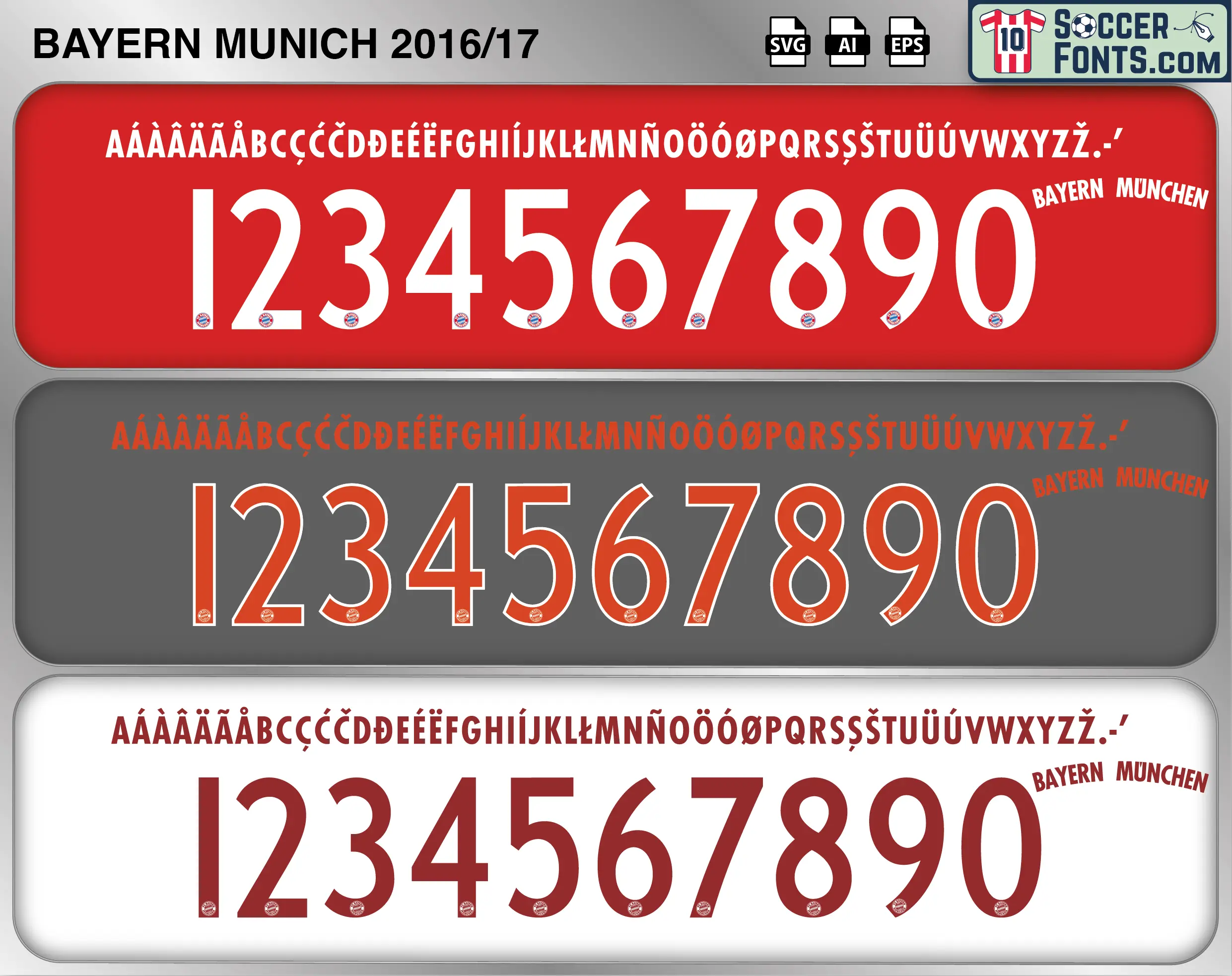
About Bayern Munich 2016-17 Font
Download the Bayern Munich 2016-17 font, an editable soccer jersey lettering design in vector format inspired by the Bayern Munich kit style used during the 2016-17 football season. This football font artwork is prepared for football shirt recreations, custom jersey projects, football kit mockups and sports graphic design workflows.
The 2016-17 season opened a new chapter at Bayern Munich as Carlo Ancelotti succeeded Pep Guardiola and inherited a squad packed with established international stars. Robert Lewandowski remained the focal point of the attack alongside Thomas Müller, Arjen Robben, Franck Ribéry and Douglas Costa, while Manuel Neuer, Philipp Lahm, Jérôme Boateng, Mats Hummels, David Alaba and Arturo Vidal provided experience throughout the team. The Bayern Munich 2016-17 font belongs to a campaign in which the club maintained its domestic dominance and secured a fifth consecutive Bundesliga championship. Lewandowski produced another prolific season, while Lahm and Xabi Alonso approached the end of distinguished playing careers that had made both figures important parts of Bayern’s football culture.
European competition provided some of the season’s most memorable matches. Bayern emphatically eliminated Arsenal from the UEFA Champions League round of 16 with 5-1 victories in both legs before meeting Real Madrid in a dramatic quarter-final. Their European campaign ended after extra time at the Santiago Bernabéu, leaving the Bundesliga title as the major trophy of Ancelotti’s first season. The Bayern Munich 2016-17 font is consequently tied to an era featuring the final appearances of Lahm and Alonso alongside the continuing Robben-Ribéry generation. For collectors recreating shirts associated with Lewandowski, Robben, Ribéry, Müller or Lahm, the Bayern Munich 2016-17 font represents a distinctive transitional season between two coaching eras while Bayern remained the dominant force in German club football.